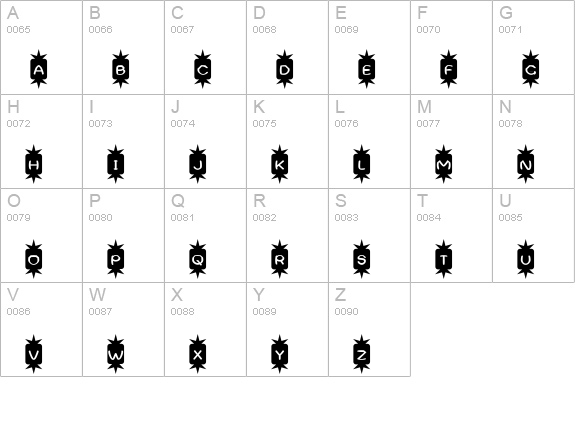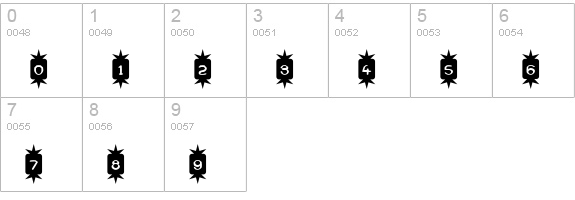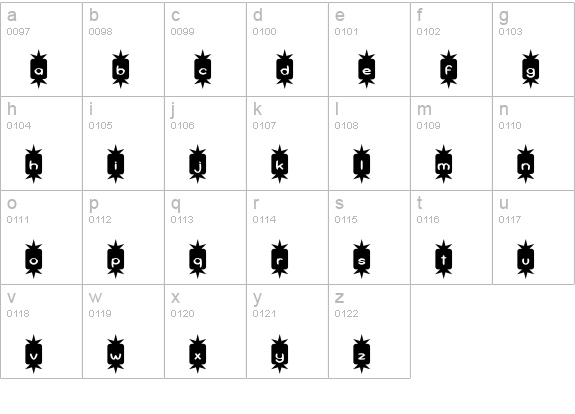
Positive Nhilism Font Details
Positive Nhilism font is a unique and modern typeface that exudes a sense of optimism and creativity. Its sleek lines and bold strokes make it perfect for a wide range of design projects, from branding to packaging to social media graphics. The font's positive energy is sure to captivate your audience and leave a lasting impression. What sets Positive Nhilism font apart is its versatility - it can be used for both headlines and body text, making it a great choice for creating cohesive designs. Whether you're designing a poster, a website, or a logo, this font will bring a fresh and contemporary feel to your project. And the best part? Positive Nhilism font is completely free to download at FontsMarket.com. So go ahead and add this stylish and uplifting typeface to your font library today!